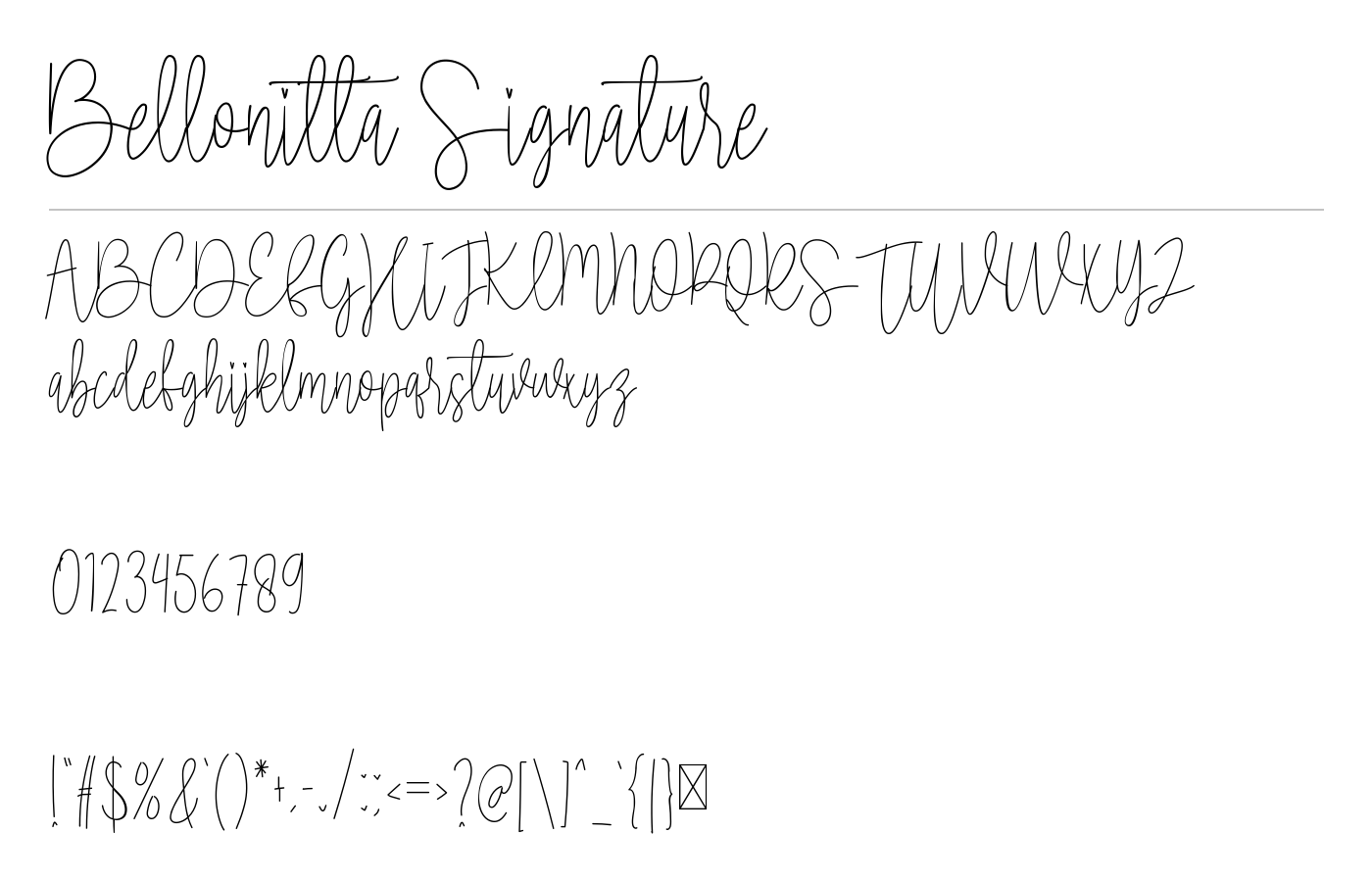
Bellonitta Signature is a delicate, handwritten script font with thin, flowing strokes that mimic natural signature handwriting. Its tall, elegant letterforms and graceful curves convey a modern, personal, and sophisticated feel, making it perfect for branding, invitations, and stylish editorial designs where a touch of intimacy and refinement is desired.
Bellonitta Signature Font